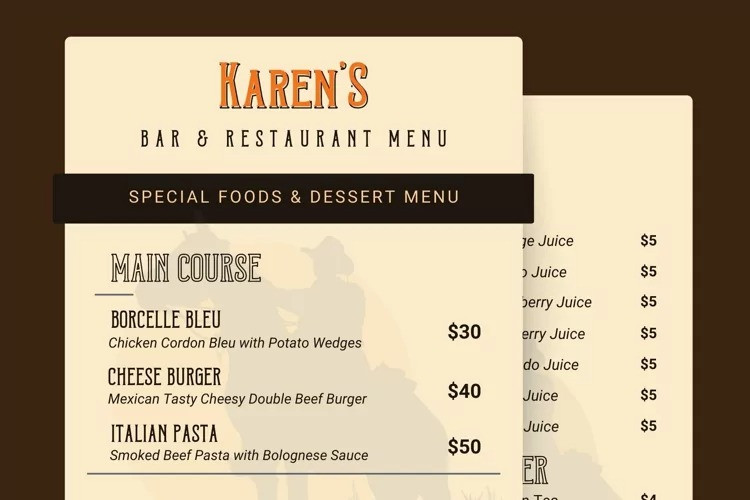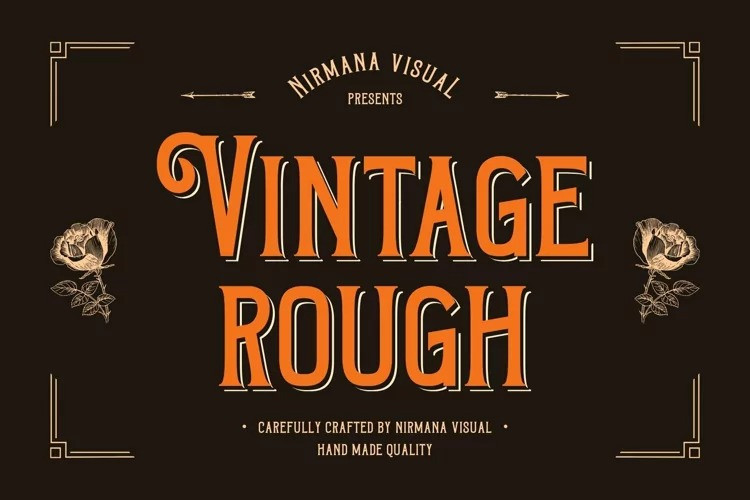
Vintage Rough Font
Introducing Vintage Rough Retro Font , Inspired by 70s Design Era
Vintage Rough offers beautiful typographic harmony for a diversity of design projects, including logos & branding, social media posts, advertisements & product designs.